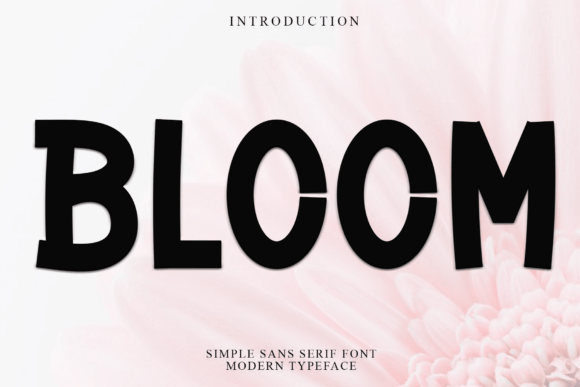
The Magic of Bloom Font: Elevate Your Holiday Designs
What Makes Bloom Font Special?
Bloom Font is a festive and merry typeface that embodies the essence of the holiday season. With its decorative elements and whimsical flair, it adds a touch of enchantment to your designs. This font is perfect for greeting cards, gift tags, and holiday-themed projects, bringing a cheerful and nostalgic ambiance to your words.
So, what do I love about Bloom Font? Here are a few things that make it stand out:
- ✅ Whimsical Design: The decorative elements and whimsical flair make it perfect for holiday-themed projects.
And, like any font, it’s not without its quirks:
- ⚠️ Limited Use Cases: While Bloom Font is perfect for holiday-themed projects, it may not be the best choice for more formal or professional designs.
- 🤔 Glyph Overload: With so many glyphs and ligatures available, it can be overwhelming to choose the right ones for your design.
The Story Behind Bloom Font
Bloom Font was designed by a team of creatives who wanted to capture the magic of the holiday season in a typeface. Inspired by traditional holiday decorations and vintage typography, Bloom Font is a unique and festive font that’s perfect for adding a touch of enchantment to your designs.
| Font Name | Bloom Font |
| What is Bloom Font? | Bloom Font is a festive and merry typeface that captures the spirit of the holiday season. |